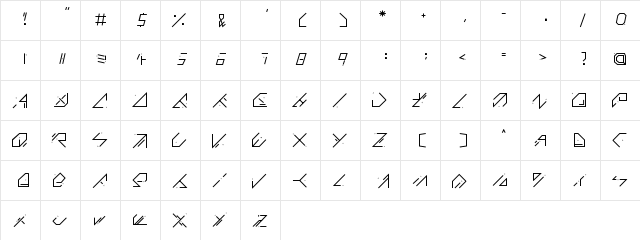
QX Basic Regular
| Foundry | Loudar |
| Designer | Loudar |
Design Context for QX Basic Typeface
QX Basic is a composed and adaptable typeface that performs quietly and consistently across a wide range of design contexts.